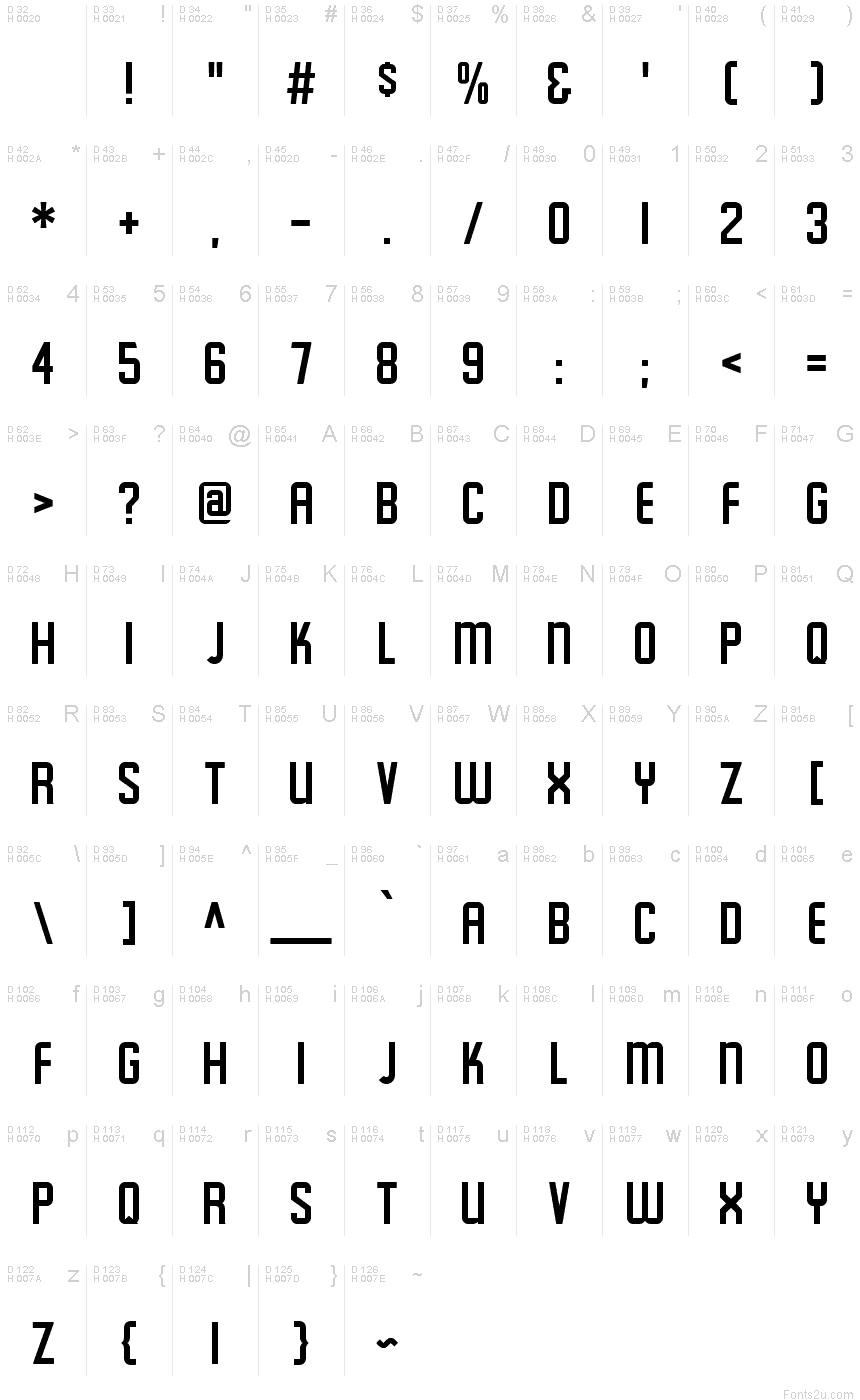
Featured Item font by Font Diner is a free techno display typeface that hits like a bold store sign lit in neon. Chunky verticals, squared curves, and tight spacing give it a compressed, shelf-stacking energy-like letters built from glossy plastic blocks. It reads fast and loud, making every word feel like a label you can almost peel off and hold in your hand.
Using Featured Item, you can brand sale signage, product packaging, pop-up shop graphics, UI buttons, game titles, and bold event posters with the same punchy, commercial attitude. This free font shines when used big and bright, especially in all caps. Pair it with a clean geometric sans in smaller sizes to handle longer copy and let Featured Item do the shouting.